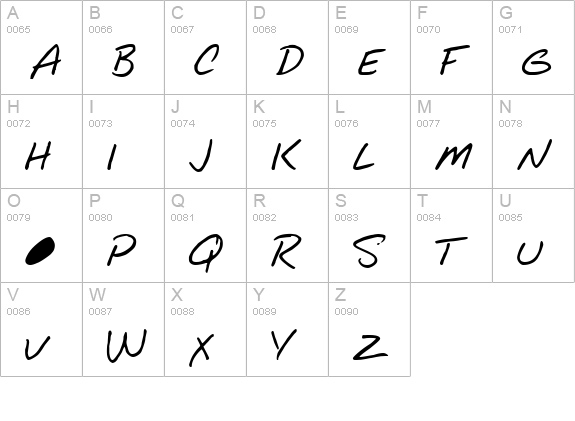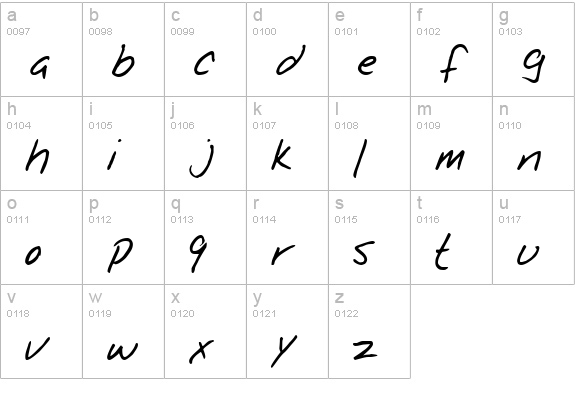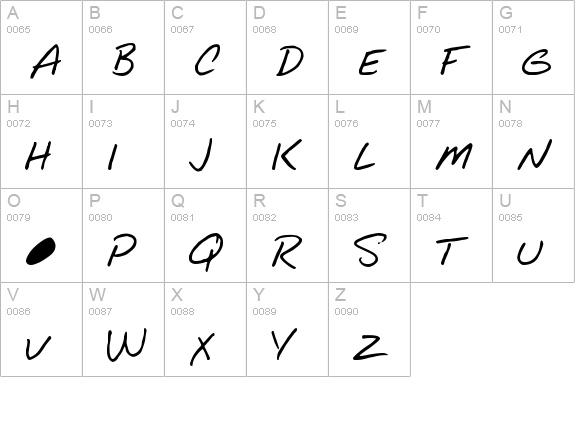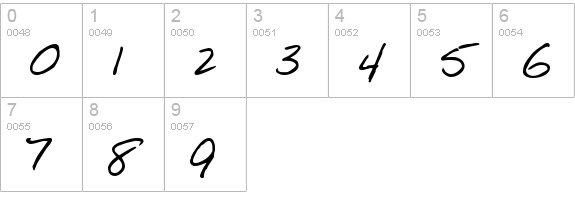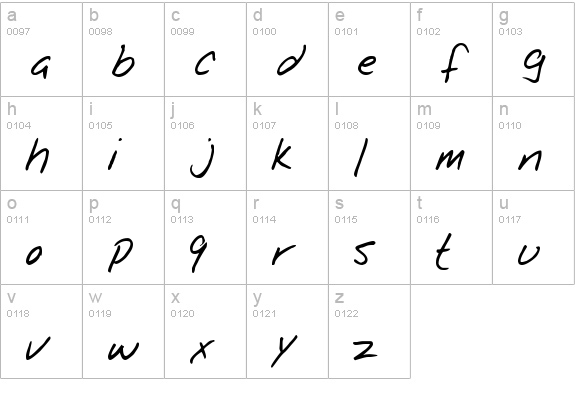
Introducing the Notepad font - a classic, versatile typeface that embodies simplicity and clarity. With its clean lines and timeless appeal, Notepad is the perfect choice for various design projects, from branding to editorial content. This elegant font exudes a sense of professionalism while maintaining a modern edge, making it suitable for both digital and print applications. What sets Notepad apart is not only its exceptional design but also the fact that it is available for free download at FontsMarket.com. Yes, you read that right - this high-quality font can be yours at no cost, allowing you to elevate your designs without breaking the bank. Whether you're a seasoned designer looking to refresh your font library or a newcomer seeking a reliable typeface, Notepad is a fantastic choice that won't disappoint. Download it today and unlock a world of creative possibilities with this exceptional free font.